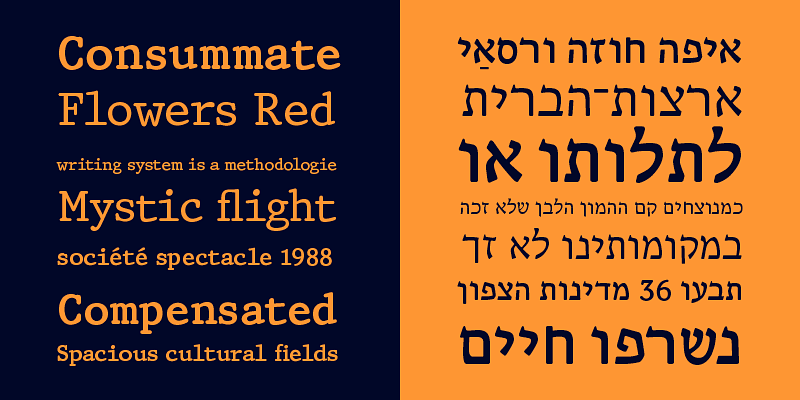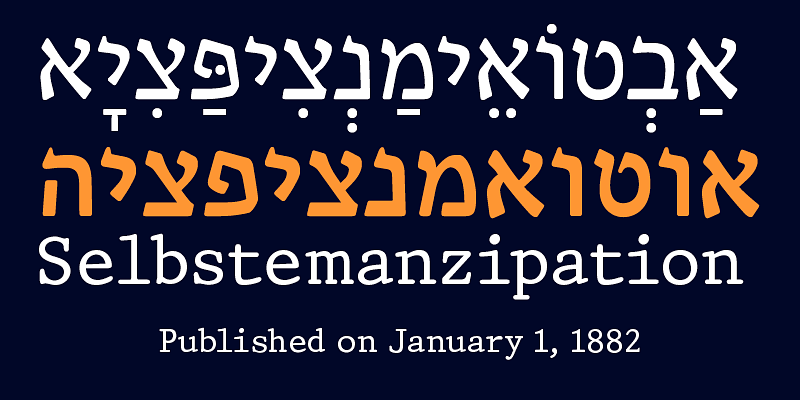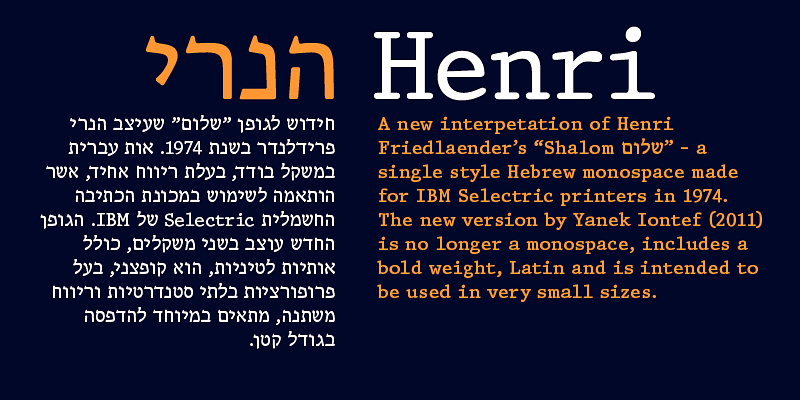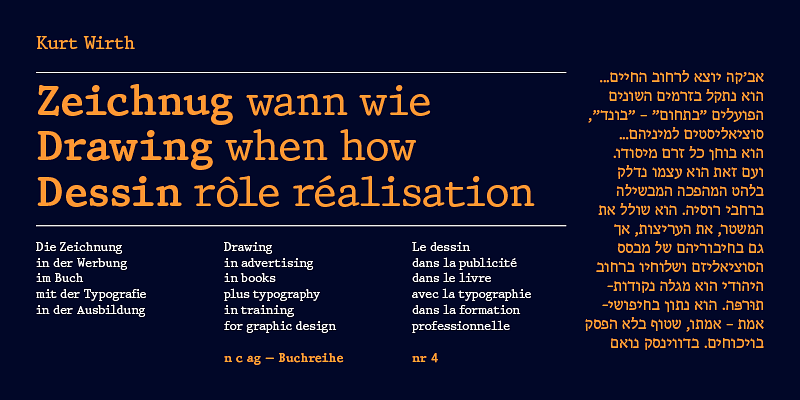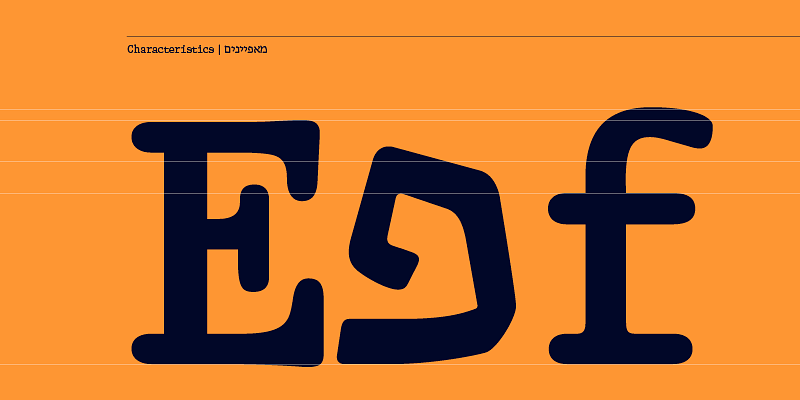
A new interpretation of Henri Friedlaender’s “Shalom שלום” - a single style Hebrew monospace made for IBM Selectric printers in 1974. The new version by Yanek Iontef (2017) is no longer a monospace, includes a bold weight, Latin and is intended to be used in small sizes.